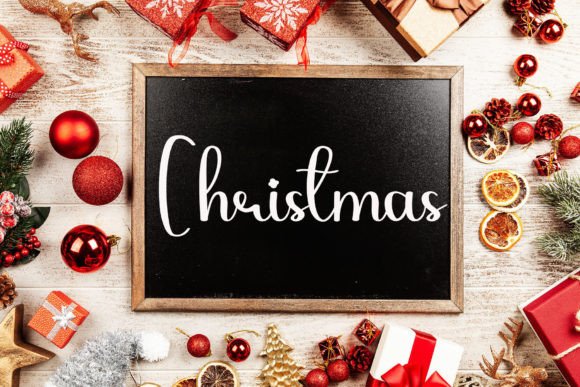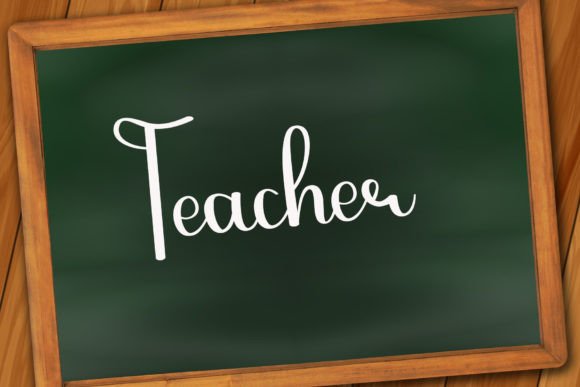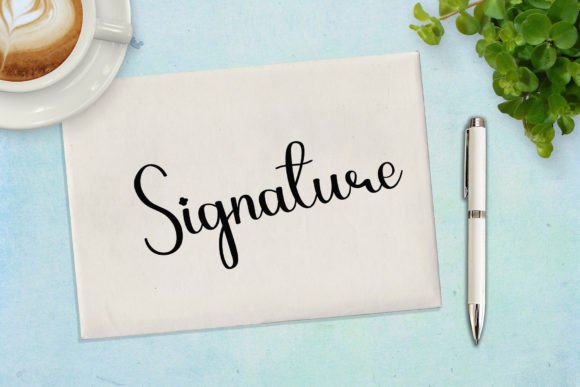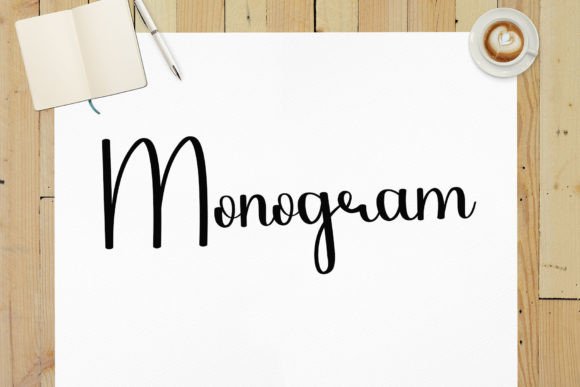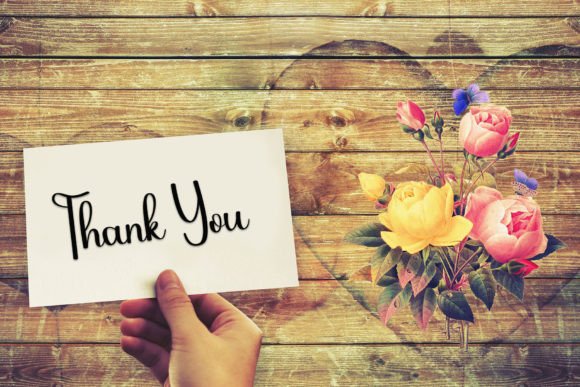
Discover the Elegance of Blackboard Font: A Perfect Choice for Creative Designs
Are you a designer or crafter looking for a unique and elegant font to add a personal touch to your creative projects? Look no further than the Blackboard Font. This beautiful, handwritten font is perfect for a variety of design applications, including wedding invitations, greeting cards, billboards, logos, business cards, and more.
What is Blackboard Font?
Blackboard Font is a distinctive and stylish font that mimics the look of handwritten text on a blackboard. Its elegant and cursive script makes it an ideal choice for designs that require a personal and sophisticated touch. The font is highly versatile and can be used for a wide range of creative projects, from formal events to casual designs.
Characteristics of Blackboard Font
Blackboard Font has several characteristics that make it a popular choice among designers and crafters. Some of its key features include:
- Elegant and Cursive Script: The font features a beautiful, cursive script that adds a touch of elegance to any design.
- Handwritten Look: The font mimics the look of handwritten text on a blackboard, giving it a personal and unique feel.
- Highly Versatile: Blackboard Font can be used for a wide range of design applications, from formal events to casual designs.
- Easy to Read: Despite its elegant and cursive script, the font is easy to read and understand, making it perfect for designs that require a clear message.
Uses of Blackboard Font
Blackboard Font is a highly versatile font that can be used for a variety of design applications. Some of the most popular uses of the font include:
- Wedding Invitations: The font is perfect for wedding invitations, adding a touch of elegance and sophistication to the design.
- Greeting Cards: Blackboard Font is ideal for greeting cards, including birthday cards, Christmas cards, and more.
- Billboards: The font can be used for billboards, adding a personal and creative touch to outdoor advertising.
- Logos: Blackboard Font can be used to create unique and elegant logos for businesses and organizations.
- Business Cards: The font is perfect for business cards, adding a touch of professionalism and sophistication to the design.
Tips for Using Blackboard Font
Blackboard Font is a unique and elegant font that can add a personal touch to your creative designs. Its elegant and cursive script makes it perfect for wedding invitations, greeting cards, billboards, logos, business cards, and more. With its highly versatile nature and easy-to-read design, Blackboard Font is a popular choice among designers and crafters. By following the tips outlined above, you can use Blackboard Font to create beautiful and effective designs that stand out from the crowd.